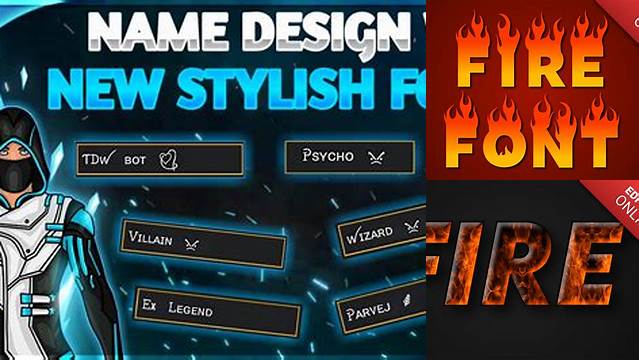
Cool Free Fire Font Space: Style Your Name!
Hey guys! Are you a die-hard Free Fire fanatic looking to spice up your in-game name? Want to make it stand out from the crowd and grab everyone's attention? Well, you're in the right place! We're diving deep into the awesome world of Free Fire font spaces, and how you can use them to create super cool and unique usernames. Get ready to transform your ordinary name into something extraordinary. This guide will help you understand everything you need to know about font spaces in Free Fire, from what they are, how to get them, and how to use them to make your name look absolutely amazing. So, buckle up, because we're about to embark on a journey of font customization and name styling that will take your Free Fire experience to the next level. Let's get started and make your Free Fire identity unforgettable!
1. What Exactly Is a Free Fire Font Space?
Alright, let's start with the basics, shall we? A Free Fire font space refers to special characters, symbols, or hidden spaces that you can incorporate into your in-game name to give it a unique appearance. These aren't your typical spaces you find on your keyboard; they're invisible characters or specific font variations that can create the illusion of space, add visual flair, or even make your name appear differently. Think of it as the secret ingredient for a personalized and eye-catching username. Basically, Free Fire font spaces are the tools to create those cool, stylish names you often see in the game, where letters and words are arranged in ways that regular text simply can't achieve. They can vary in appearance, from almost invisible spaces that allow you to create gaps in your name to decorative symbols and unique font styles that make your name pop. Using these font spaces is all about creativity and personal expression, allowing you to showcase your personality and stand out in the game. These font spaces are the hidden gems that turn a boring name into something that truly represents you.
Now, the main idea is to make your name special with Free Fire font spaces. With this, you can customize the appearance of your name to include specific font characters. The result? Your name becomes a unique expression, different from the rest. The spaces are usually invisible characters or special variations that create spaces within the name. Your name can appear with a unique appearance, full of spaces, and be completely unique. They are also used to make the name look more attractive or decorative. It's a way to enhance your identity within the game, showing off your personality and creativity. Whether you want a name that looks sleek and modern or something more playful and eye-catching, Free Fire font spaces give you the freedom to create a username that truly reflects who you are. This allows you to differentiate your name with a variety of characters to make your name special in Free Fire.
1.1 Types of Font Spaces and Symbols Used
Let's break down the different types of font spaces and symbols you can use in Free Fire. These elements are the building blocks of a stylish in-game name. There are various font spaces, including invisible spaces that make your name look cleaner and more organized. Invisible spaces are like secret agents; they create space between letters or words without showing anything, giving your name a clean look. Think of them as the silent heroes of username customization. Then, we have font variations and unique symbols. These are special characters that add a visual flair to your name. They include things like special font styles that make your text look different from the standard, plus symbols like stars, hearts, and other creative elements to spice things up. There are a variety of symbols, from simple punctuation marks to elaborate designs, allowing you to create a name that stands out. Finally, there are combinations of these elements. You can mix invisible spaces with special symbols to create a perfectly balanced and eye-catching name. So, you can make your name as simple or as complex as you want. Experimenting with different combinations allows you to create a username that perfectly reflects your style and personality.
Different fonts can change the appearance of your name to something more attractive. Symbols can also be a key factor to make your name more interesting. In Free Fire, you can try combining different elements to get creative results. These elements will give the appearance of space with several options to create something unique. By using different combinations, you can create a name that's both stylish and instantly recognizable, separating you from the crowd and leaving a lasting impression. The goal is to make a name that is visually attractive and represents you. There is no limit to what you can do. Using different fonts, special characters, and invisible spaces is the key to creating a unique and memorable username in Free Fire. This will also give you an advantage, as your name becomes a reflection of your personality and creativity, and the name that will always be remembered.
2. How to Get Those Awesome Font Spaces for Free Fire
So, how do you actually get your hands on these magical font spaces? The process is super simple and can be done in a few easy steps. First, you need to find a font generator. There are many websites and online tools designed to create cool and stylized text. Simply type in your desired name, and the generator will provide you with a variety of font styles and special characters to choose from. Next, copy the generated text. Once you've found the perfect style, highlight the text and copy it. It's as simple as that! Now, head over to Free Fire. Open the game, go to your profile, and select the option to change your name. Paste the text you copied from the font generator into the name field. Voila! You now have a stylish and unique username. The whole process is quick and easy, allowing you to change your name without hassle. There are many options, so don't be afraid to experiment to find the perfect style that matches your personality. The goal is to create a username that you love and that represents you well. Remember, the possibilities are endless, so start exploring and let your creativity run wild!
The main idea is to get a name that fits your character. You can find many font generators, choose your favorite style and copy-paste it into your name section in Free Fire. This simple method can make you stand out from the other players. To add more creativity, you can add symbols that are available in some generators. All you have to do is find the style you want, copy it, and then paste it into the name section. The font generators are a great option for customizing your name in Free Fire. You will have more options to show your creativity. You can also mix several elements to make your name more unique. The font generator allows you to create a name that perfectly reflects your personality and stands out in the game.
2.1 Websites and Tools for Font Generation
There are tons of websites and tools available to generate fonts and special characters for your Free Fire name. Some popular options include cool font generators that let you type your name and see it transformed into various styles, with options to copy and paste directly into your Free Fire profile. Other tools allow you to create custom text, including special characters and symbols. Many websites also offer a wide selection of symbols and characters you can copy and paste. These can include hearts, stars, and various special symbols to add that extra flair to your name. Finally, some online font generators also provide invisible space characters, which are perfect for creating clean and unique name designs. Each website usually has a user-friendly interface to quickly find the options to transform your name. Many tools are free and easy to use, so you can quickly create an attractive and personalized name for your Free Fire profile. Be sure to explore different options to find what works best for you and expresses your style.
These resources are super useful for customizing your Free Fire name, offering a wide array of options to express your creativity. With these tools, you can explore many styles and create a name that truly represents you. Whether you want something simple and elegant or something bold and eye-catching, these tools have it all. Don't hesitate to explore and experiment to find the perfect look for your name. Many of these resources are free and easy to use. Some options include different styles, symbols, and special characters. You will be amazed at the options you will find, and you can give your name a cool makeover. The goal is to make your name special. Use the tools to make it happen, which will give you a unique identity in the game.
3. Step-by-Step Guide: Changing Your Free Fire Name with Font Spaces
Alright, let's get down to the nitty-gritty and walk through the steps to change your name using font spaces. First, you'll need to open Free Fire. Launch the game on your device and log in to your account. Then, go to your profile. Find your profile icon in the game and tap on it. This will take you to your profile page. Next, find the name change option. Look for the edit icon, usually a pencil, next to your current name. Tap on it to access the name change menu. Now, you need to paste your fancy new name. If you've already generated your stylish name with font spaces, you can copy the text and paste it into the name field. Make sure your name fits within the character limit. Lastly, confirm your name change. Review your name to make sure everything looks good and confirm the change. If you have a name change card, you can use it here. If not, you may need to use diamonds. And that's it! Your name is officially updated.
So, there you have it, guys! Now you know everything about Free Fire font spaces and how to use them to create a unique name. By following the steps in this guide, you have the tools to make your name stand out. Express your personality, show off your style, and make sure your name leaves a lasting impression. Remember to follow the rules and make it fun. This guide has inspired you to create a fantastic name. With all the advice, you can start creating your unique identity. The goal is always to stay creative and enjoy expressing yourself through your username in Free Fire! So, get out there and enjoy the game. Have fun in Free Fire!